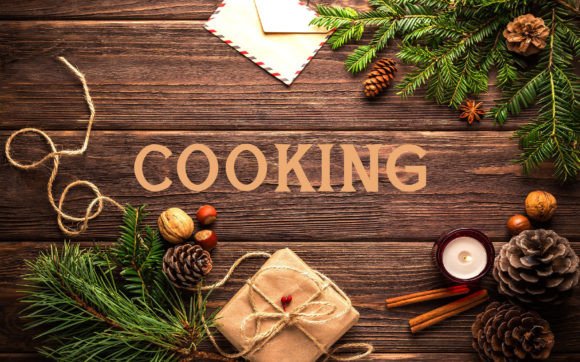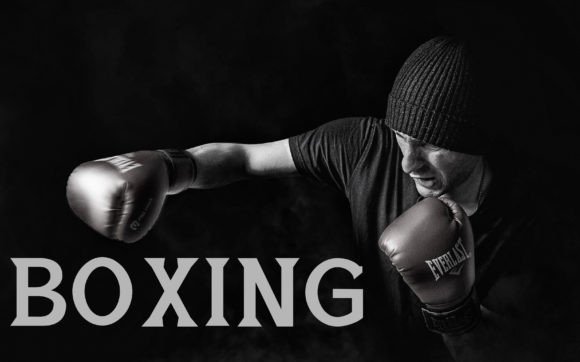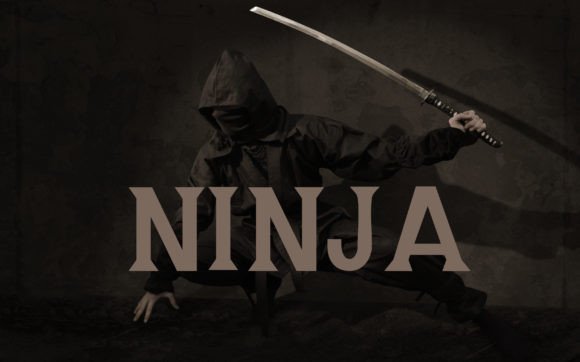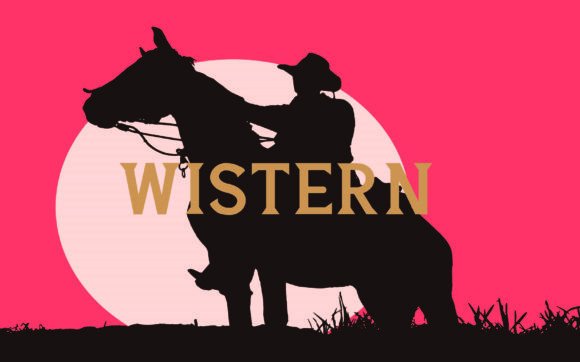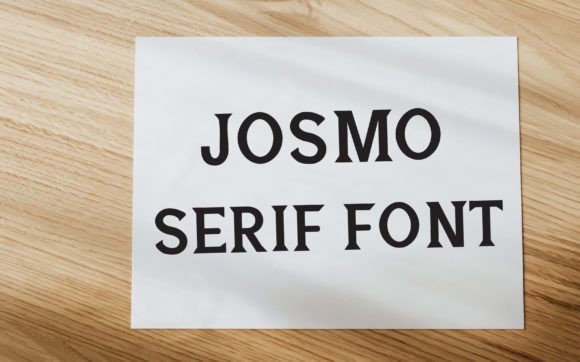
Introduction to Josmo Font
Remember that moment when you finally land on the perfect font for your design project? The one that elevates your creative vision and leaves a lasting impression on your audience? For designers, this moment is pure magic. And, we’re excited to share with you a game-changing font that will make your designs stand out from the crowd – the Josmo Font.
Whether you’re a seasoned pro or a design enthusiast, the Josmo Font is a valuable addition to your design resource toolkit. This simple yet elegant serif font is perfect for any creative project, from branding to publishing, and everything in between. With its contemporary and fresh design, the Josmo Font is sure to bring a touch of sophistication to your work.
Key Features of Josmo Font
- High-quality design resource with a unique, modern aesthetic, perfect for creative projects.
- Transparent background, allowing for seamless integration with any design or image.
- Customizable and highly versatile, making it suitable for a wide range of creative projects, from logos to typography-based art.
Honest Review: Josmo Font
I recently stumbled upon the Josmo Font while searching for a free download to enhance my design projects. I must say, I was quite impressed with its high quality and versatility.
- ✨ Unique and modern design aesthetic, perfect for creative projects
- ✨ Clear and transparent background, making it easy to overlay on various backgrounds
- ✨ Suitable for both print and digital design applications
- ⚠️ Limited font size range, which might not be ideal for large-scale typography
- ⚠️ Not as extensive as some other font families, which may limit its use in certain projects
Overall, I’m quite pleased with the Josmo Font and would recommend it as a valuable design resource. While it may not be perfect, its unique design and transparent background make it a great addition to any creative project.
Tips for Getting the Most Out of Josmo Font
To get the most out of Josmo Font, use it in combination with other design elements to create a cohesive look. Experiment with different font sizes, colors, and styles to achieve a unique design. Also, consider using a transparent background to make your text more visually appealing.
Common Use Cases for Josmo Font
Josmo Font is perfect for creative projects that require a high-quality, elegant font. Use it for invitations, brochures, business cards, and other marketing materials where you want to make a lasting impression.
Can I use the Josmo Font on a transparent background?
Yes, the Josmo Font has a transparent background, making it suitable for use on backgrounds with varying colors and textures. This feature is especially useful for designers working on creative projects that require a high level of customization and flexibility.